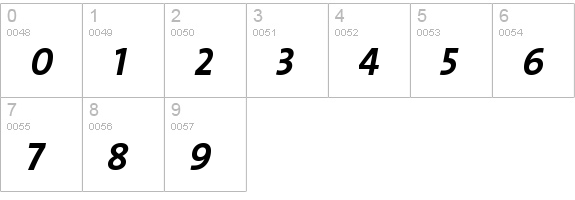
TheMix Bold Caps Italic Font Details
TheMix Bold Caps Italic is a strong, high-contrast, italic variant in the TheMix typeface family \xE2\x80\x94 well suited to headlines, attention-grabbing titles, and strong calls-to-action.
TheMix Bold Caps Italic font is a stunning display typeface that exudes confidence and sophistication. Its bold and capitalized letterforms command attention while its subtle italics add a touch of elegance and flair. This versatile font is perfect for creating eye-catching headlines, titles, and logos that demand to be noticed. With its sleek and modern design, TheMix Bold Caps Italic font is sure to make a lasting impression in any creative project. Whether you're designing a magazine spread, a branding package, or a website, this font will effortlessly elevate your work to new heights. One of the best things about TheMix Bold Caps Italic font is that it is freely available to download at FontsMarket.com. This means that you can easily access and use this remarkable font without any cost or hassle. The convenience of being able to download and use this font for free makes it even more appealing for designers and creatives looking to enhance their projects without breaking the bank. So why wait? Download TheMix Bold Caps Italic font today and unlock the potential to create visually stunning and impactful designs. With its boldness, elegance, and the freedom to use it without any charge, this font is a must-have for any designer's toolkit.